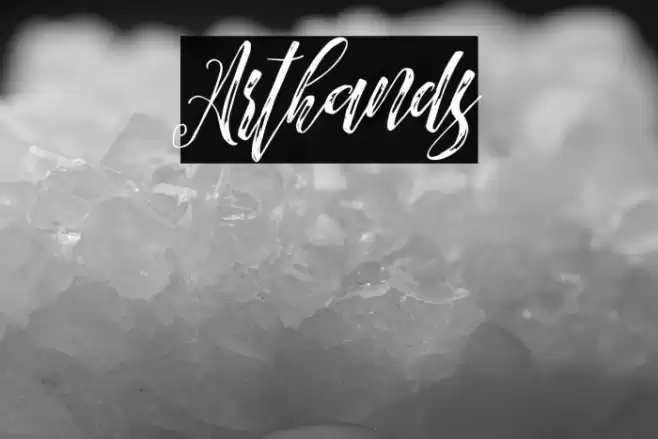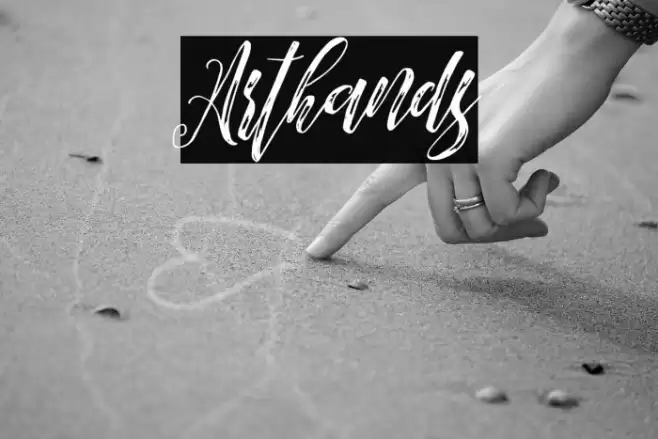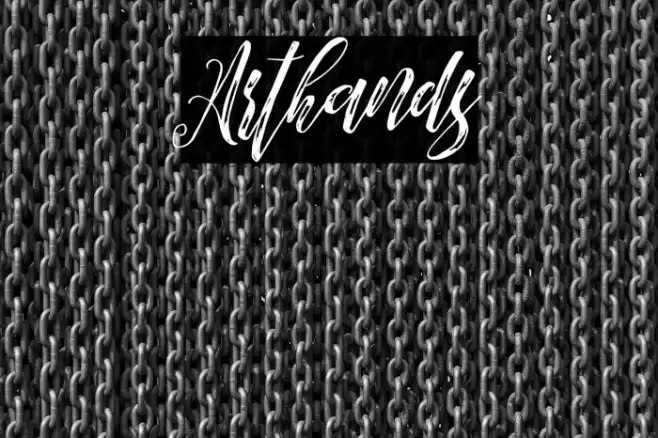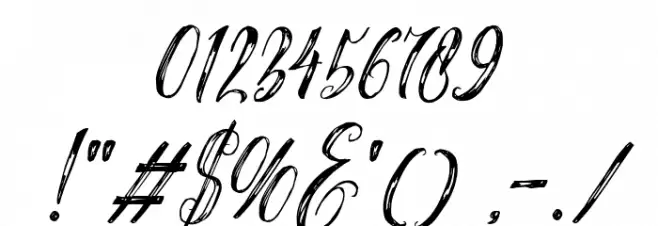
Arthands Font
Arthands Description
This font exudes an elegant and artistic flair, characterized by its flowing, cursive style with intricate swirls and flourishes. The uppercase letters are particularly ornate, with each character featuring unique embellishments that give the font a sophisticated and decorative appearance. The lowercase letters maintain a consistent cursive style, offering a harmonious blend with the uppercase set. The numerals and special characters are equally stylized, ensuring a cohesive look across all elements. This font is ideal for projects that require a touch of elegance and creativity, such as invitations, branding, or artistic designs.
An elegant, cursive font with ornate swirls and flourishes from Regular fonts.
- Proposed Projects: Ideal for wedding invitations, branding, artistic designs, and decorative projects.
- Use Case: Headlines, Logos, Invitations